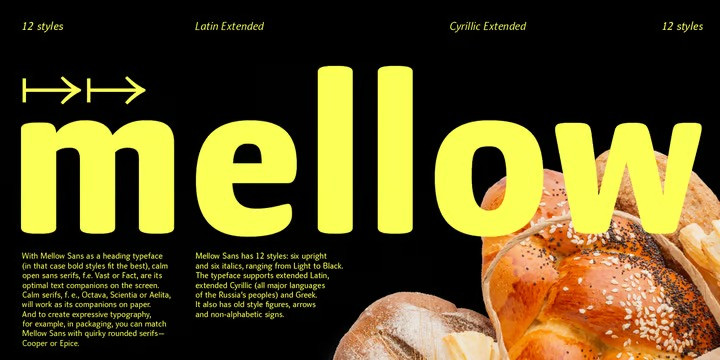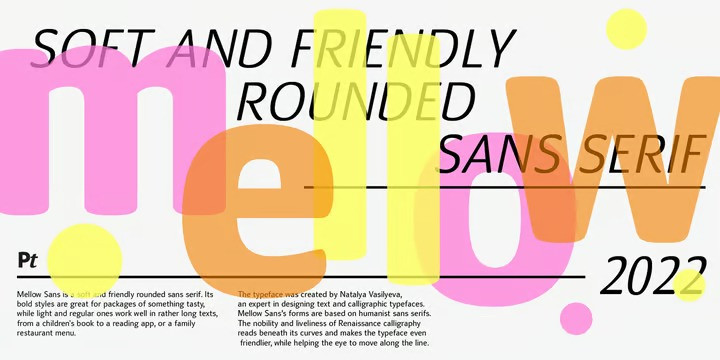
Mellow Sans Font
Mellow Sans Font is a soft and friendly rounded sans serif. Its bold styles are great for packages of something tasty, while light and regular ones work well in rather long texts, from a children’s book to a reading app, or a family restaurant menu.
The typeface was created by Natalya Vasilyeva, an expert in designing text and calligraphic typefaces. Mellow Sans’s forms are based on humanist sans serifs. The nobility and liveliness of Renaissance calligraphy reads beneath its curves and makes the typeface even friendlier, while helping the eye to move along the line.
The typeface supports extended Latin, extended Cyrillic (all major languages of the Russia’s peoples) and Greek. It also has old style figures, arrows and non-alphabetic signs.
With Mellow Sans as a heading typeface (in that case bold styles fit the best), calm open sans serifs, f.e. Vast or Fact, are its optimal text companions on the screen. Calm serifs, f. e., Octava, Scientia or Aelita, will work as its companions on paper. And to create expressive typography, for example, in packaging, you can match Mellow Sans with quirky rounded serifs — Cooper or Epice.